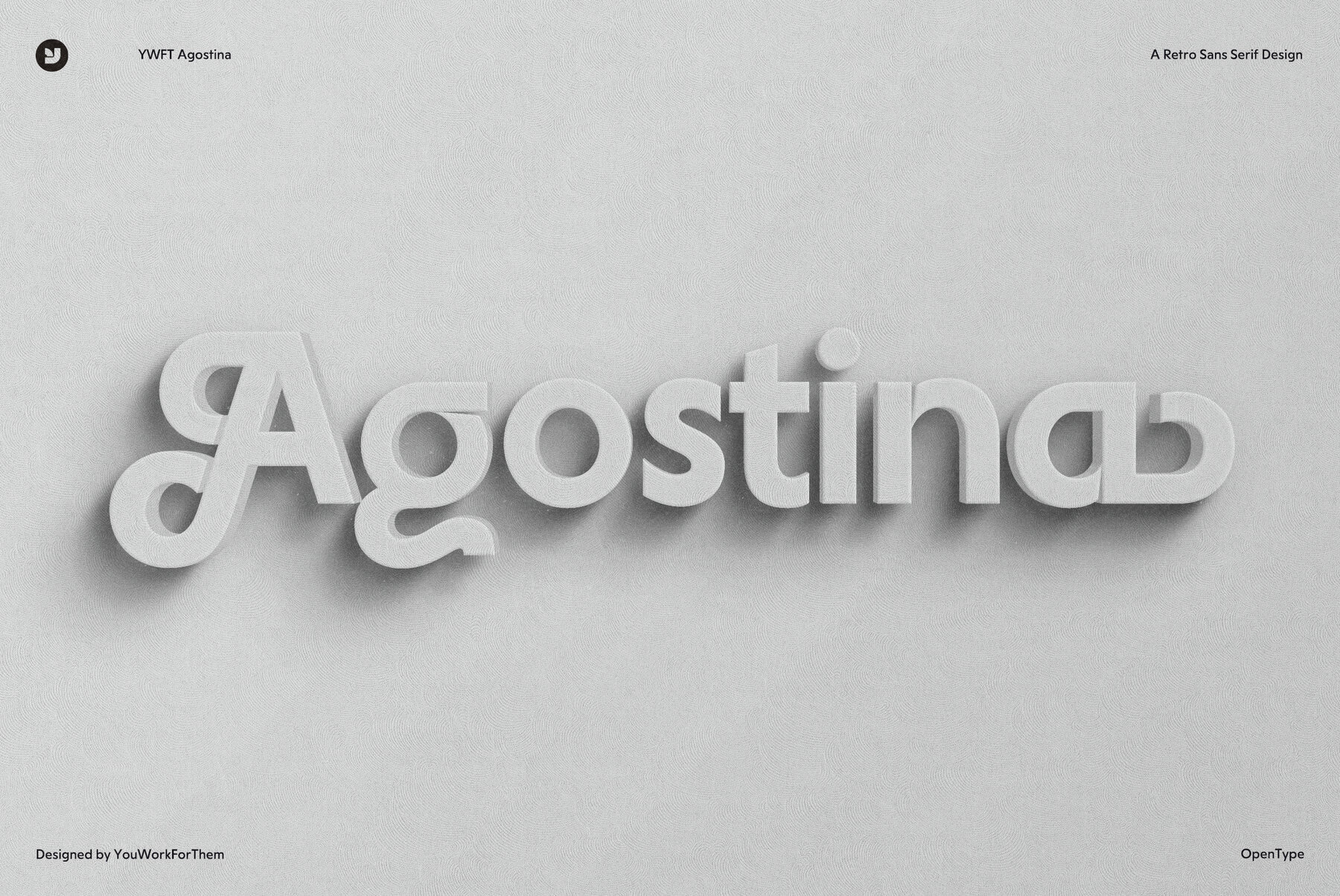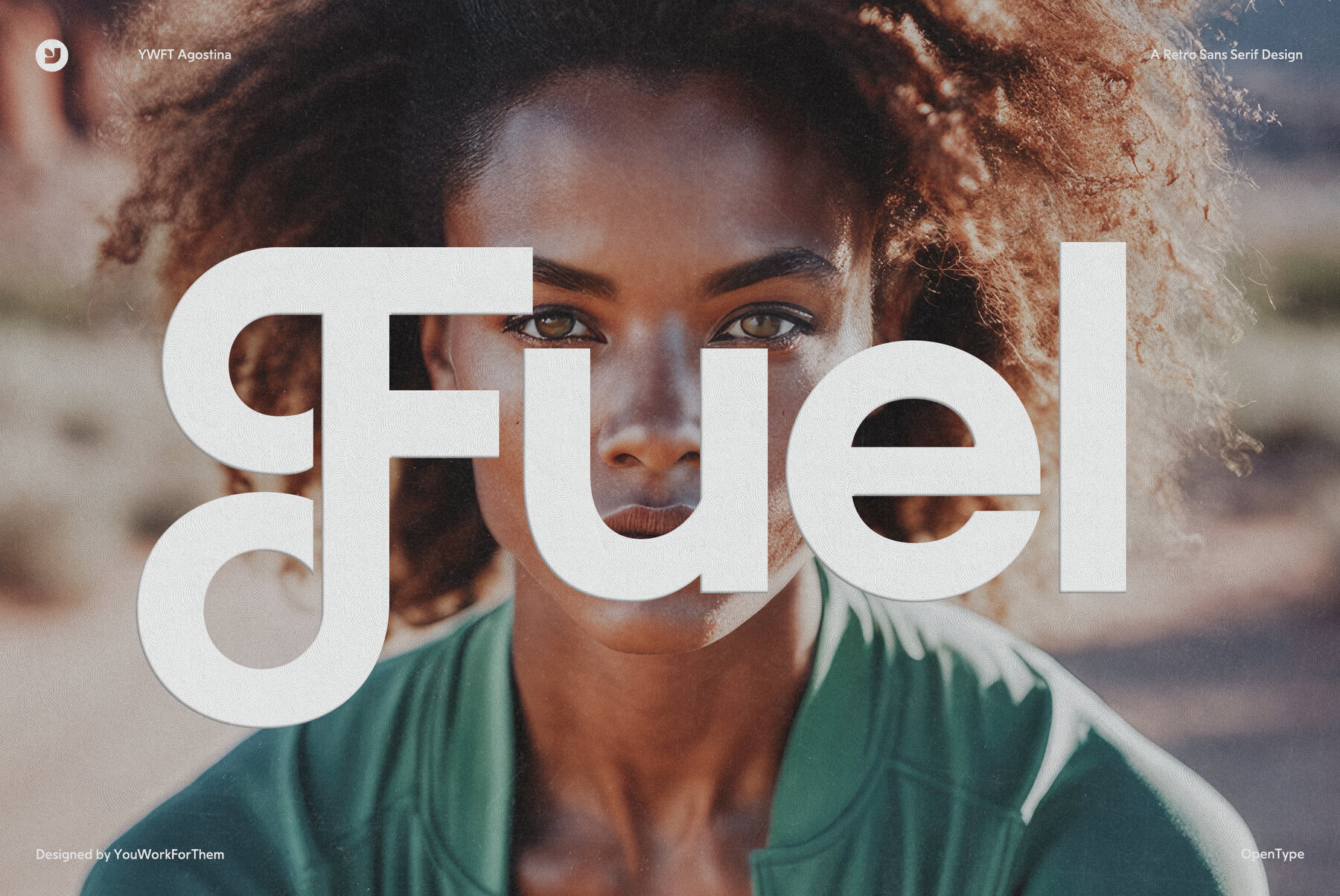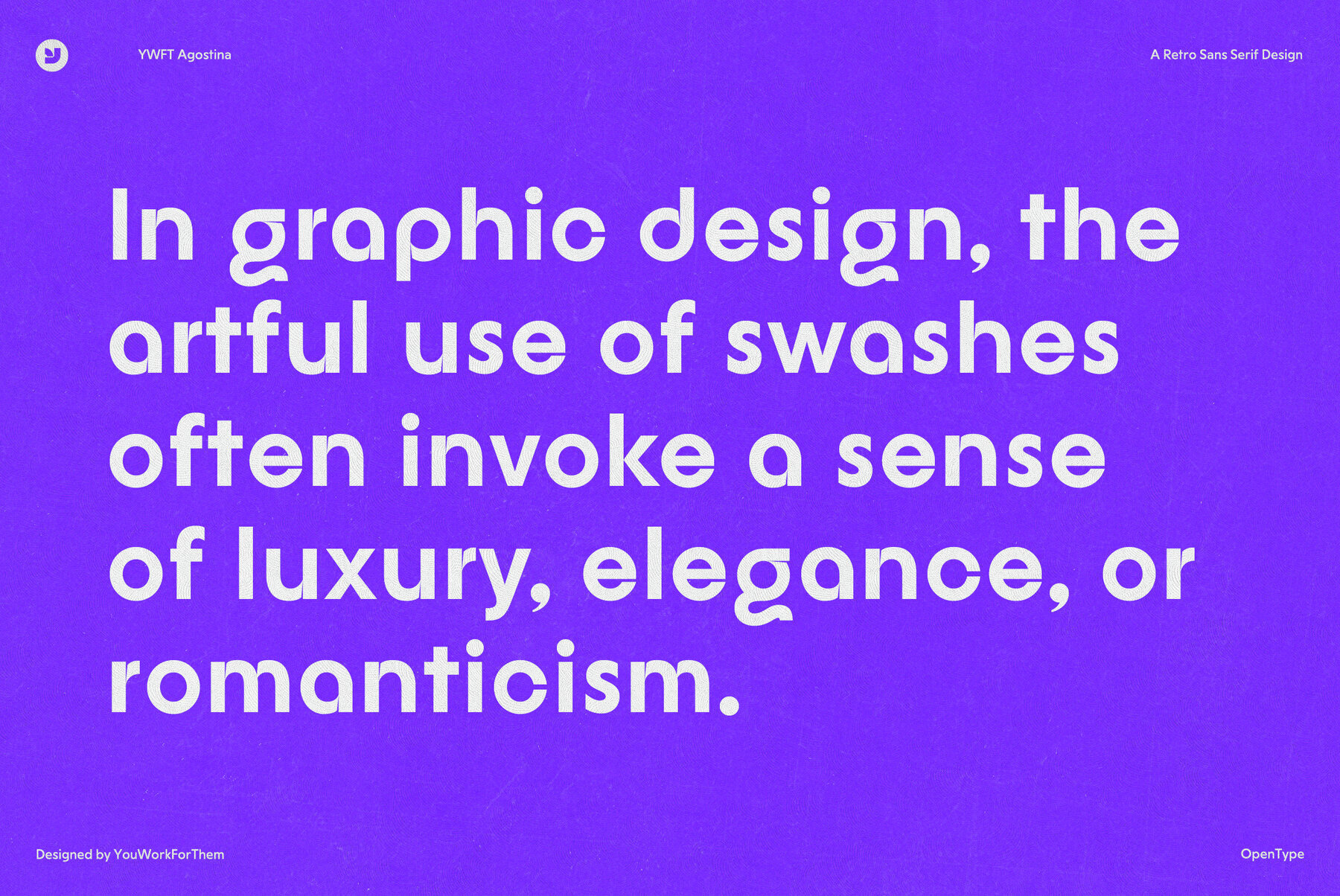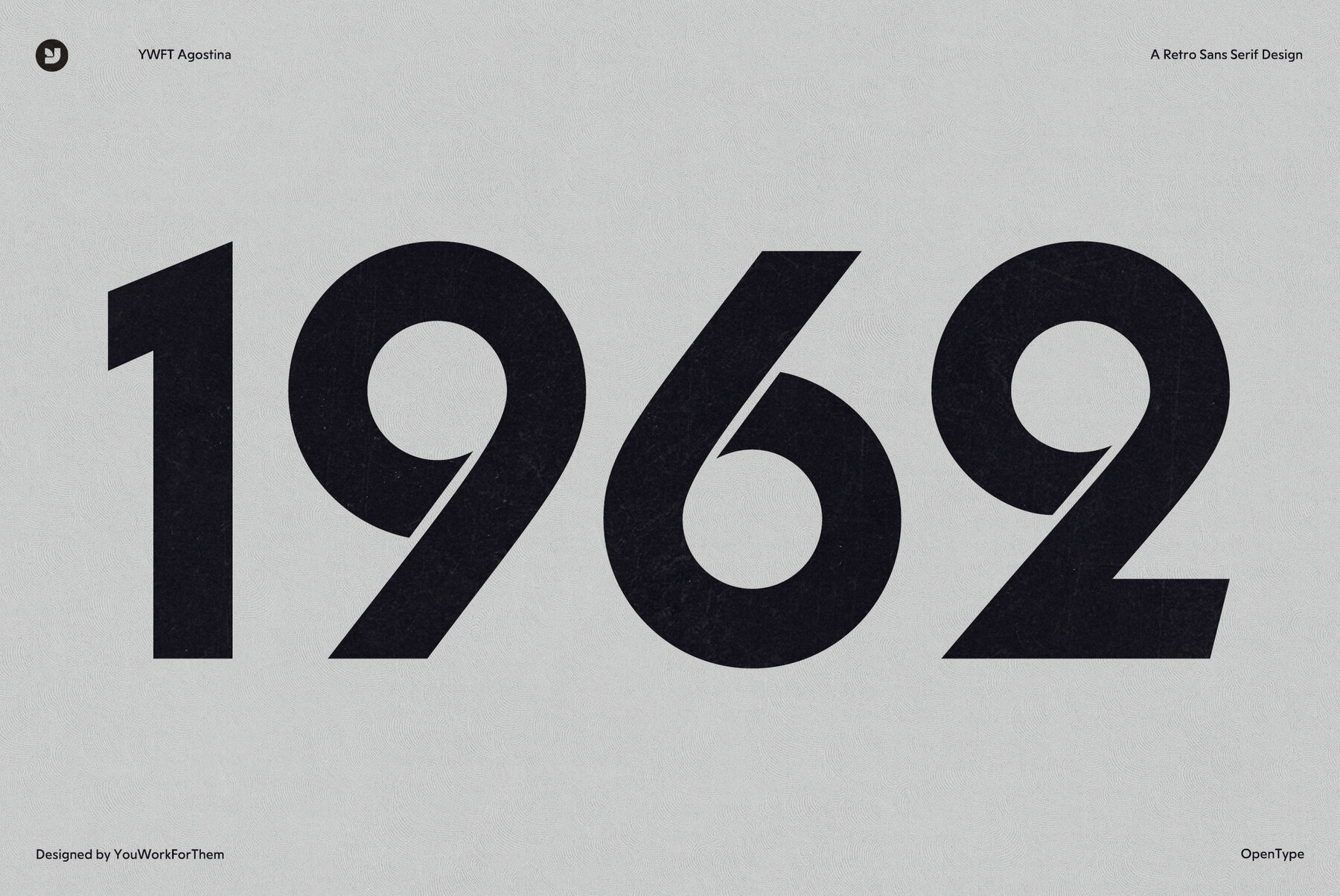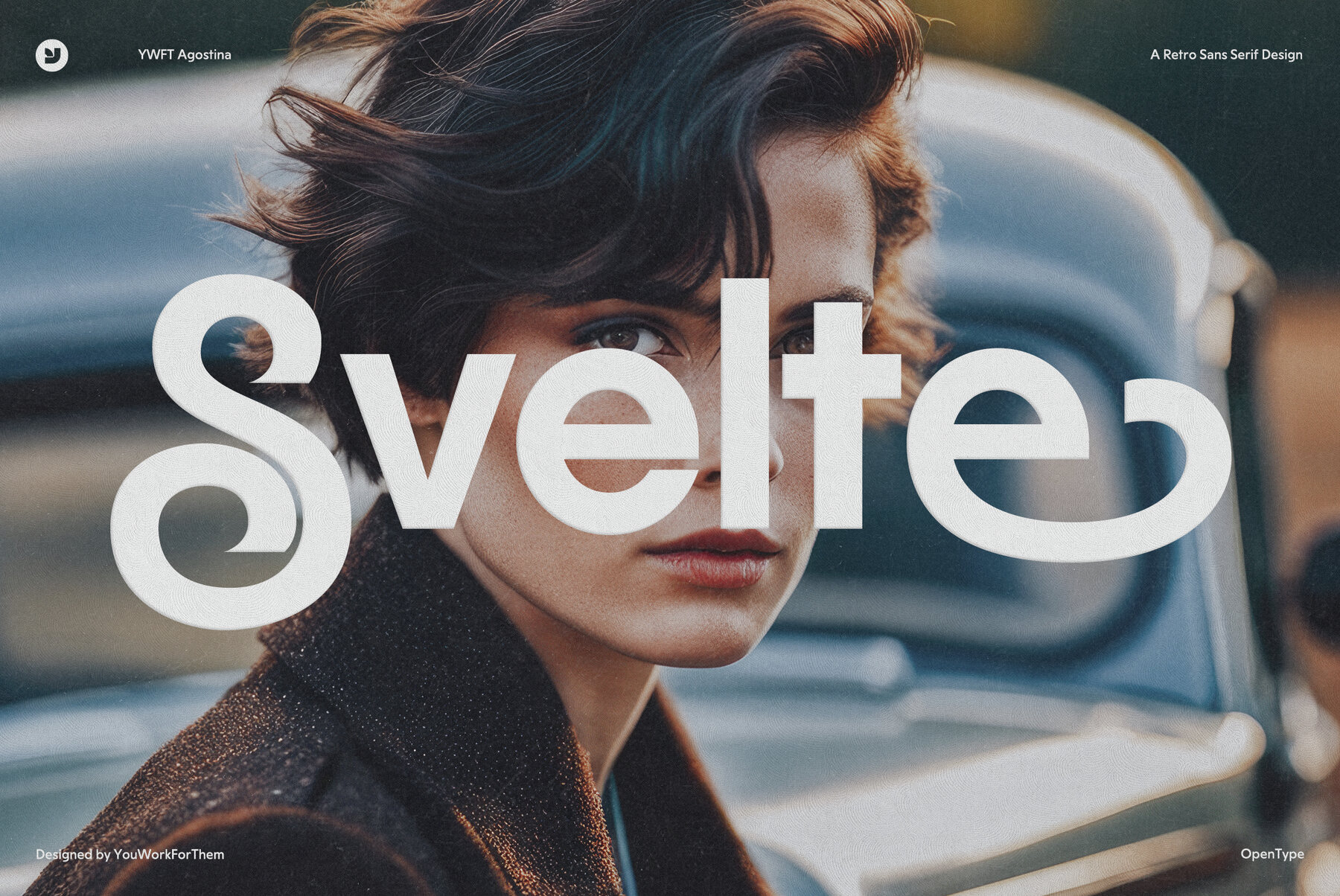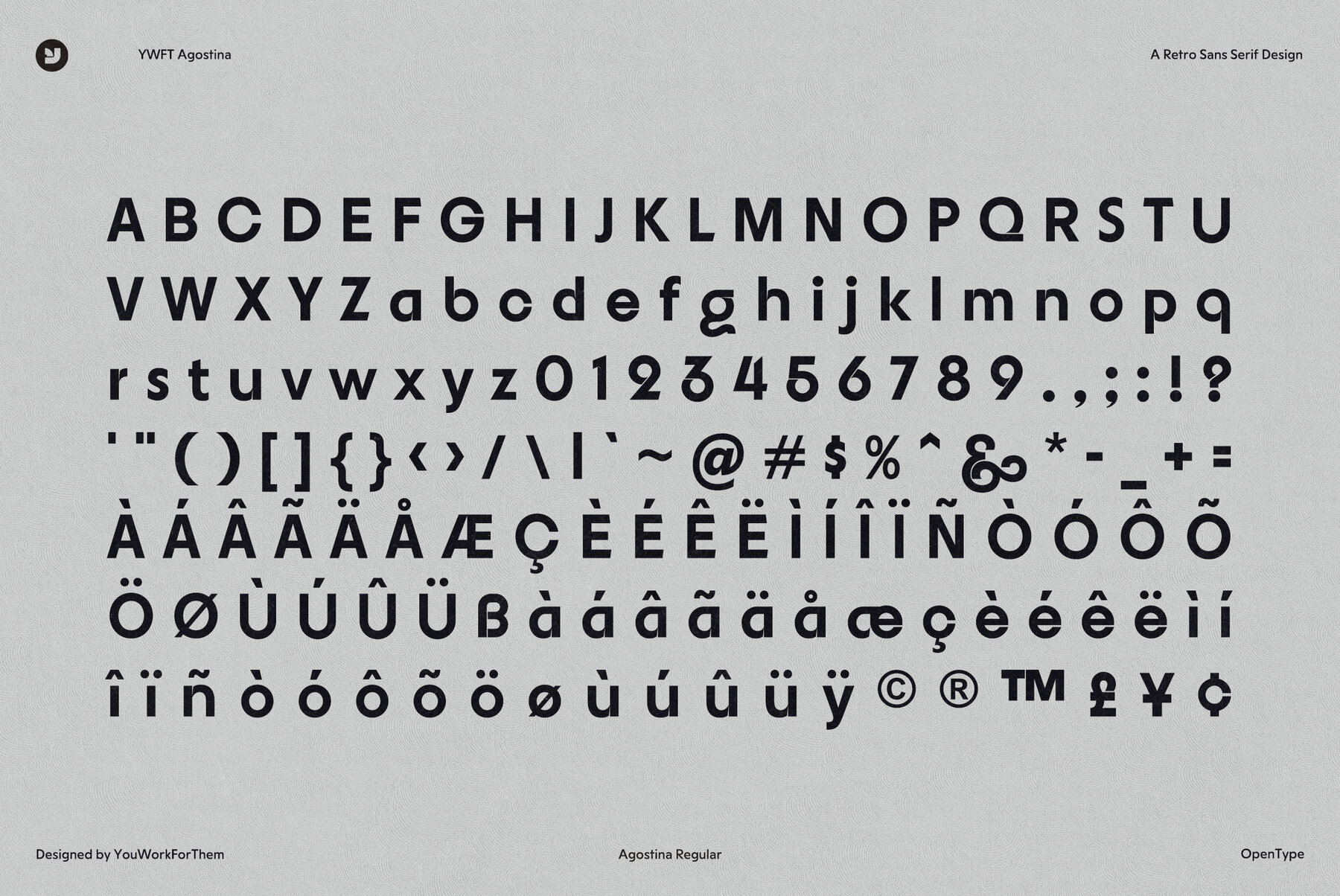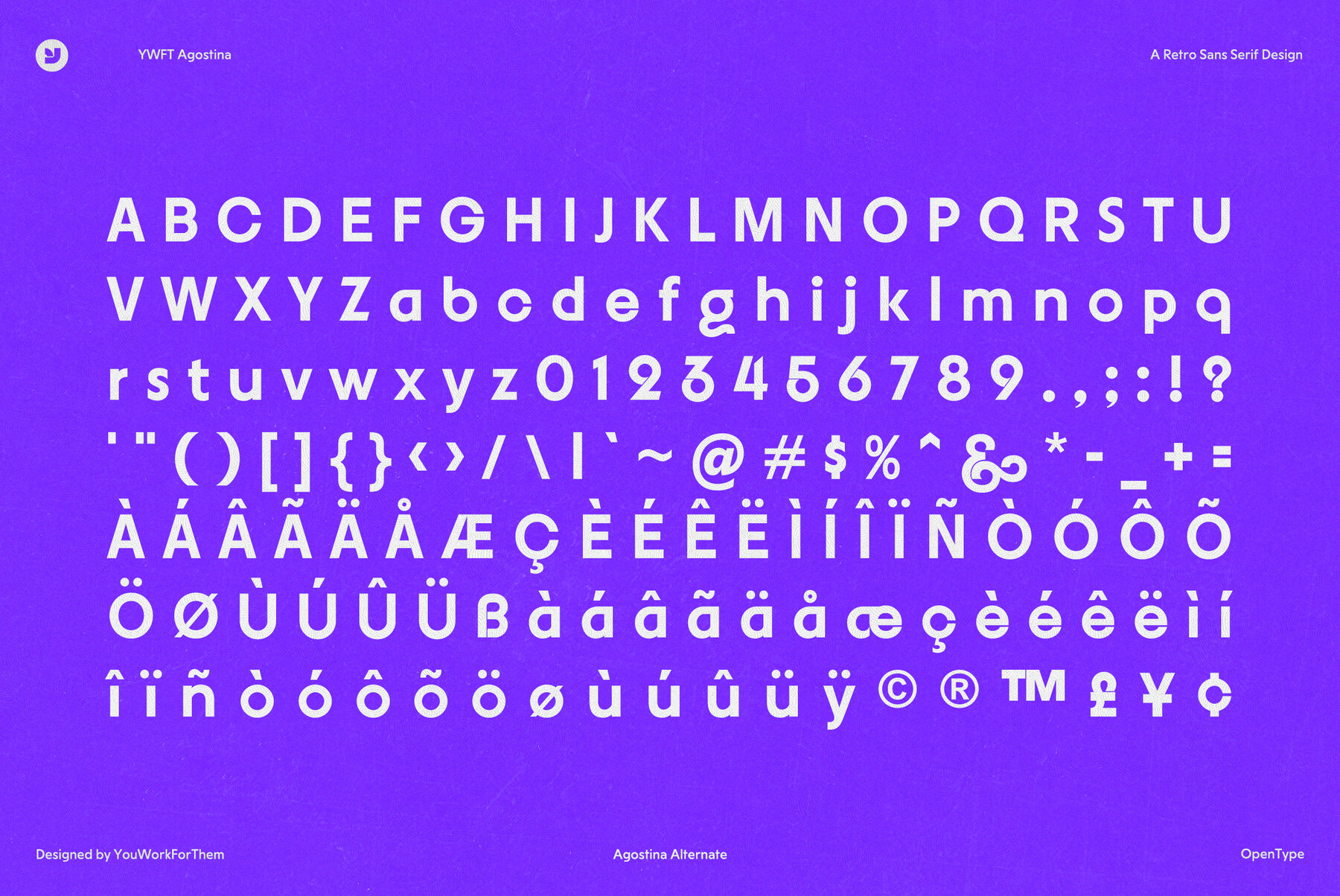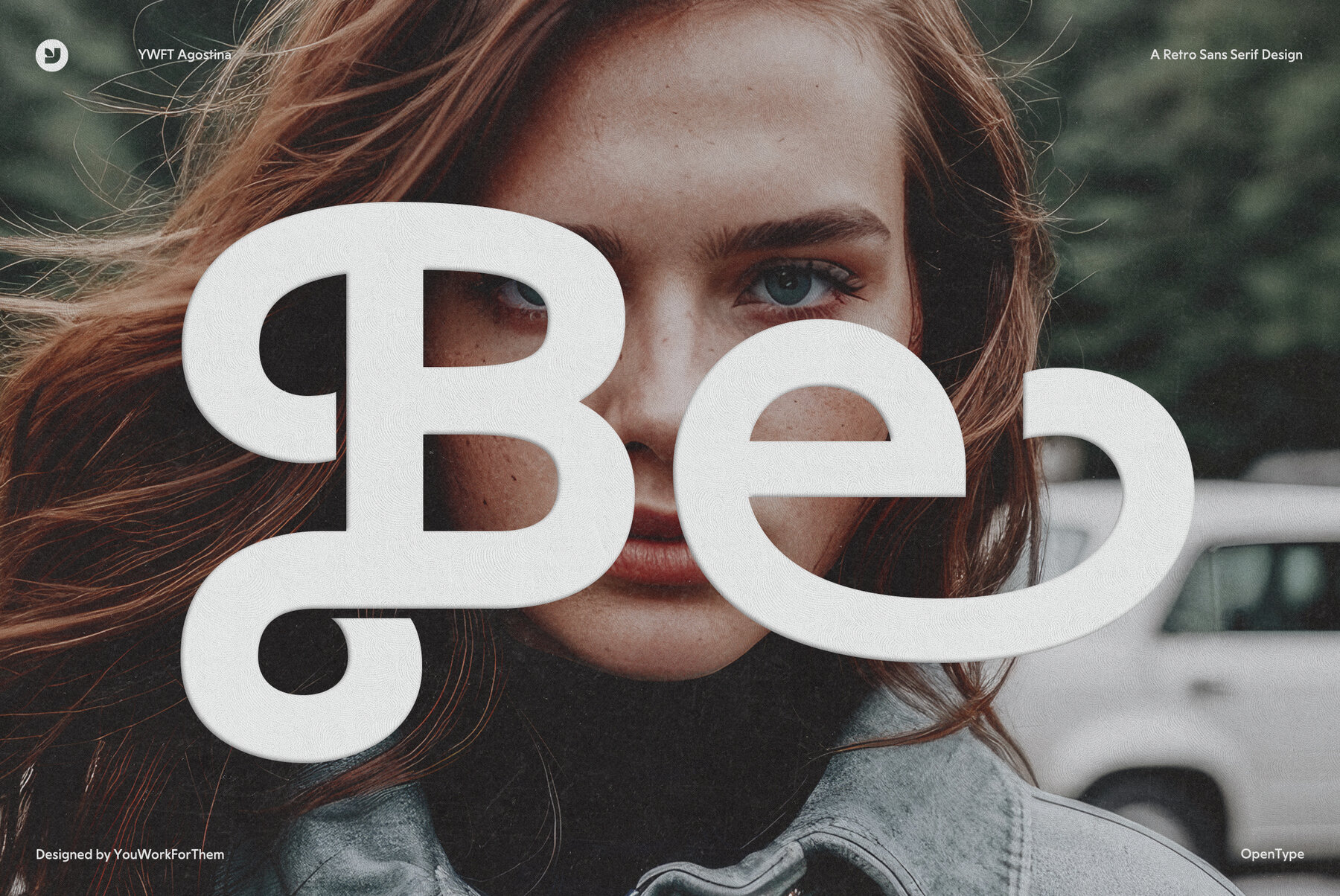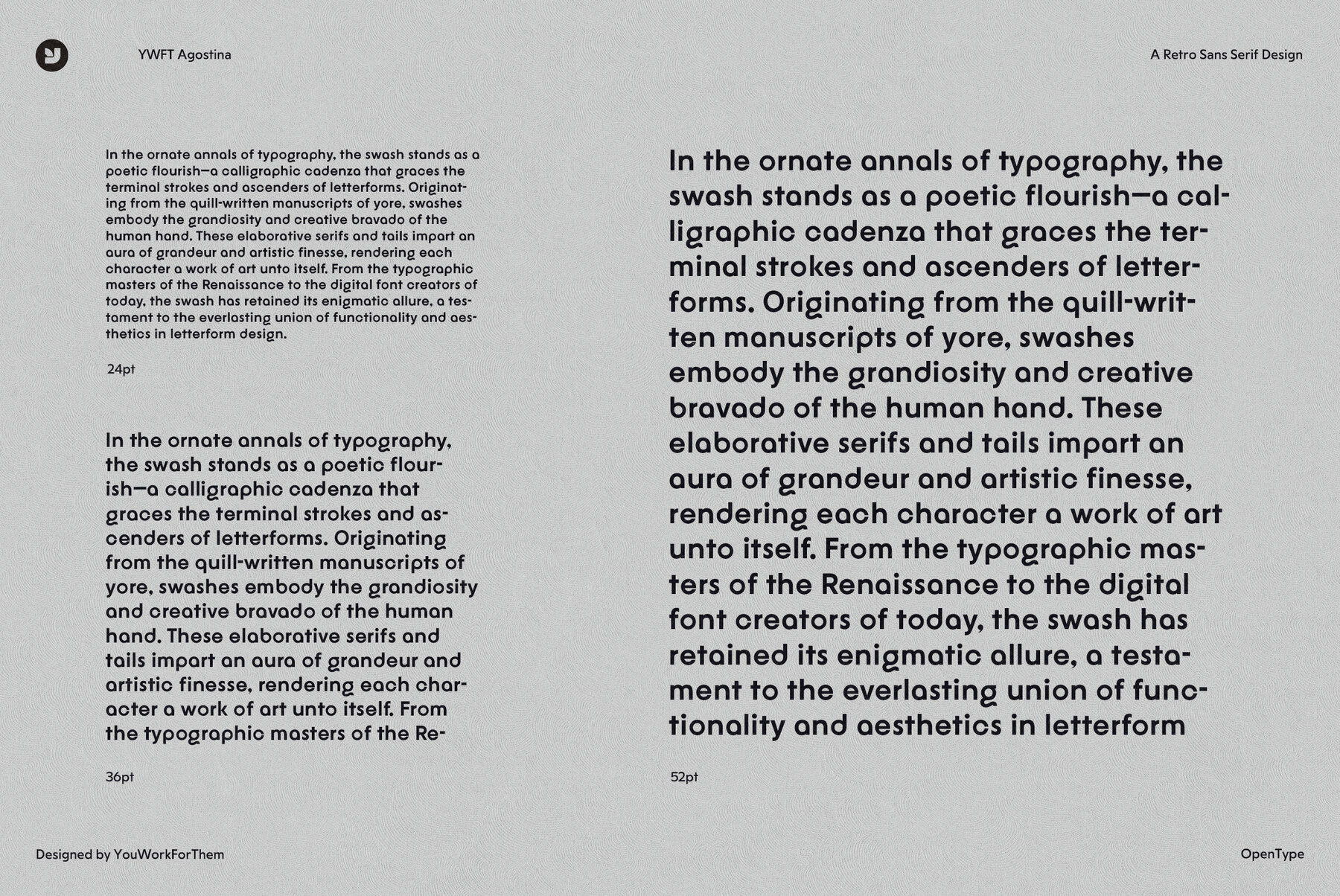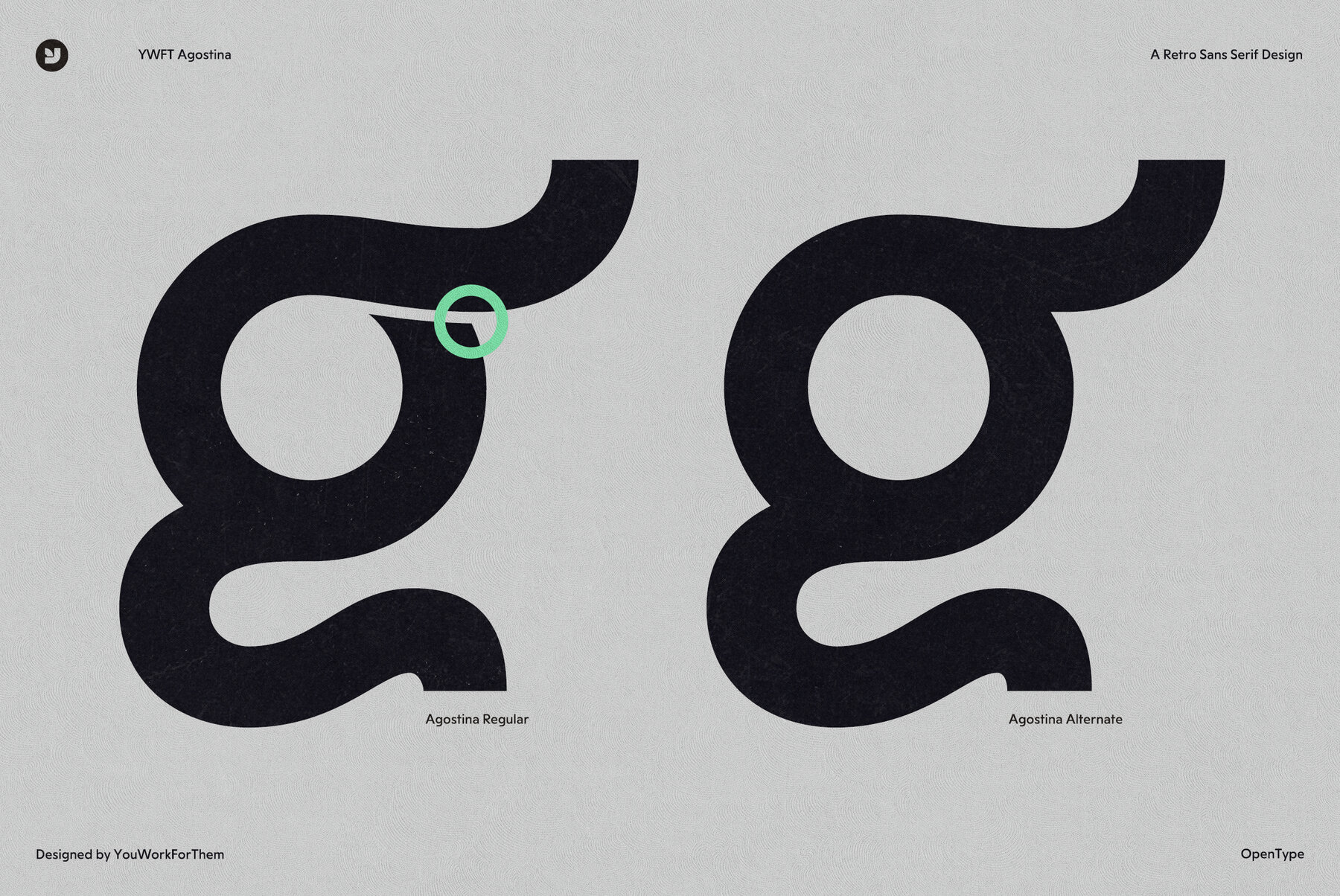
YWFT Agostina
Foundry: YouWorkForThem
With almost 300 characters, YWFT Agostina is both a workhorse and a must-own typeface. Must-own, because it's a modern sans-serif design that contains both beginning caps and ending lowercase swash letters, available easily via opentype. These special swash options open the door for endless typographic possibilities, and result in dynamic body content and headers that are simply delicious. YWFT Agostina also extends with full Latin letter designs and offers alternate character designs as well. YWFT Agostina was our second-best-selling font in 2009. Designed exclusively by Michael Cina and YouWorkForThem.